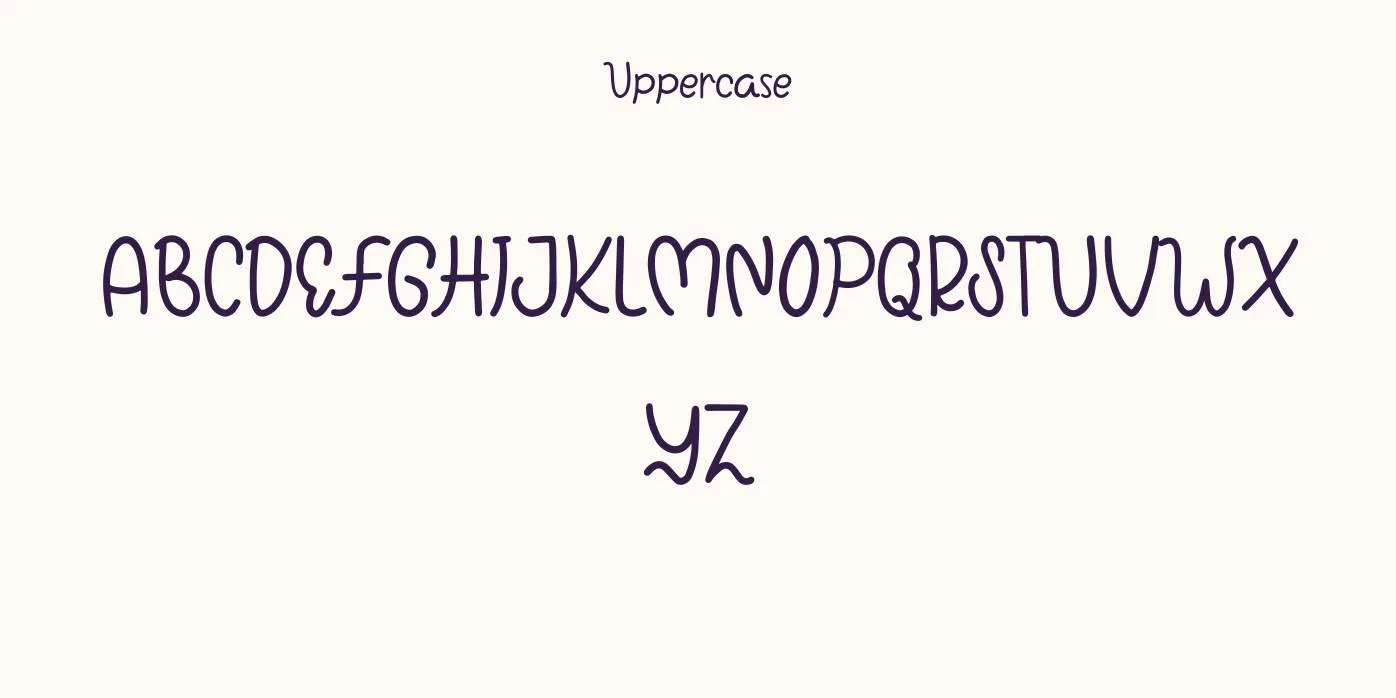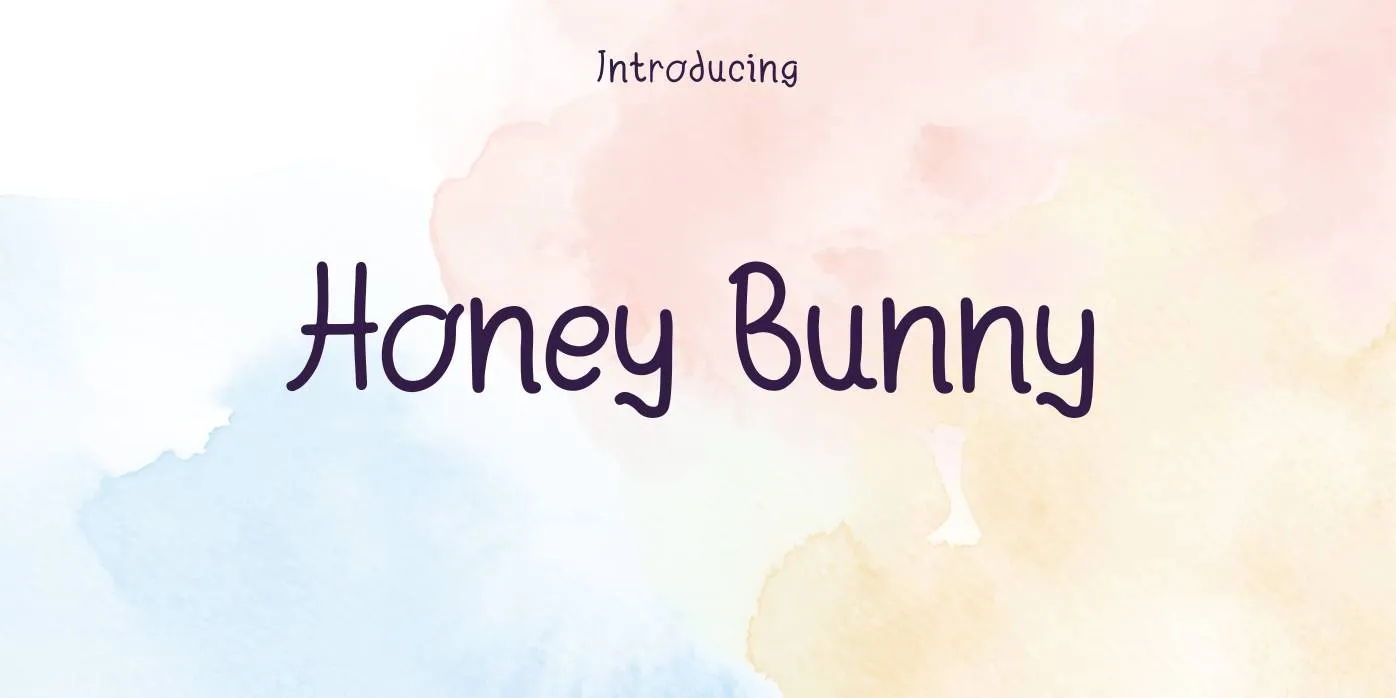
Honey Bunny Font
Now we discuss a very interesting font Honey Bunny Font. This amazing font is designed by Fajar Wicaksono and manufactured by Booga letter. It has many different features it contains 262 characters and 1000 units per Em. The weight of the font is semi-light and its width is medium (normal).
Unicode supported 2.0 and BMP only. For cartoon and animation movies it is a very good option and it is a very neat handwritten font that can be read easily. An online generator tool also supports this font to change your simple text into a stylish look without downloading the font. You can copy and paste your text as well.
Usage This amazing font can be used to design so many different projects it has many features like characters, symbols, numbers, small letters, capital letters, punctuations, and special characters. You can also use it in graphic applications like Adobe Photoshop, CSS, Canva, and Cdn to design more projects. For graphic and website design you can also use it. For making logos and titles for cartoon movies or games it can also be used Widely.
It is a very friendly font and you can use it for branding purposes also. You can also use this font for making templates and other marketing material as well. This font can also be used for making kids-related items. It can be read easily.
Can I use Honey Bunny Font for logos? This funny and amazing font can be used to design a lot of projects. You can also use it for making attractive logos as well. It can be used to design cartoon movie logos as well.